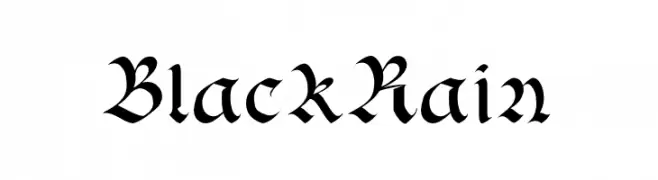
A decorative Blackletter font with intricate details and a historical, Gothic style.
A decorative blackletter font with ornate, angular strokes and historical elegance.
A bold, gothic blackletter font with intricate detailing and a historical flair.
A traditional blackletter font with intricate detailing and a historical aesthetic.
A bold, intricate Blackletter font with dramatic, historical elegance.
A bold, blackletter-style font with intricate, historical design elements.
A bold, intricate blackletter font with historical elegance.